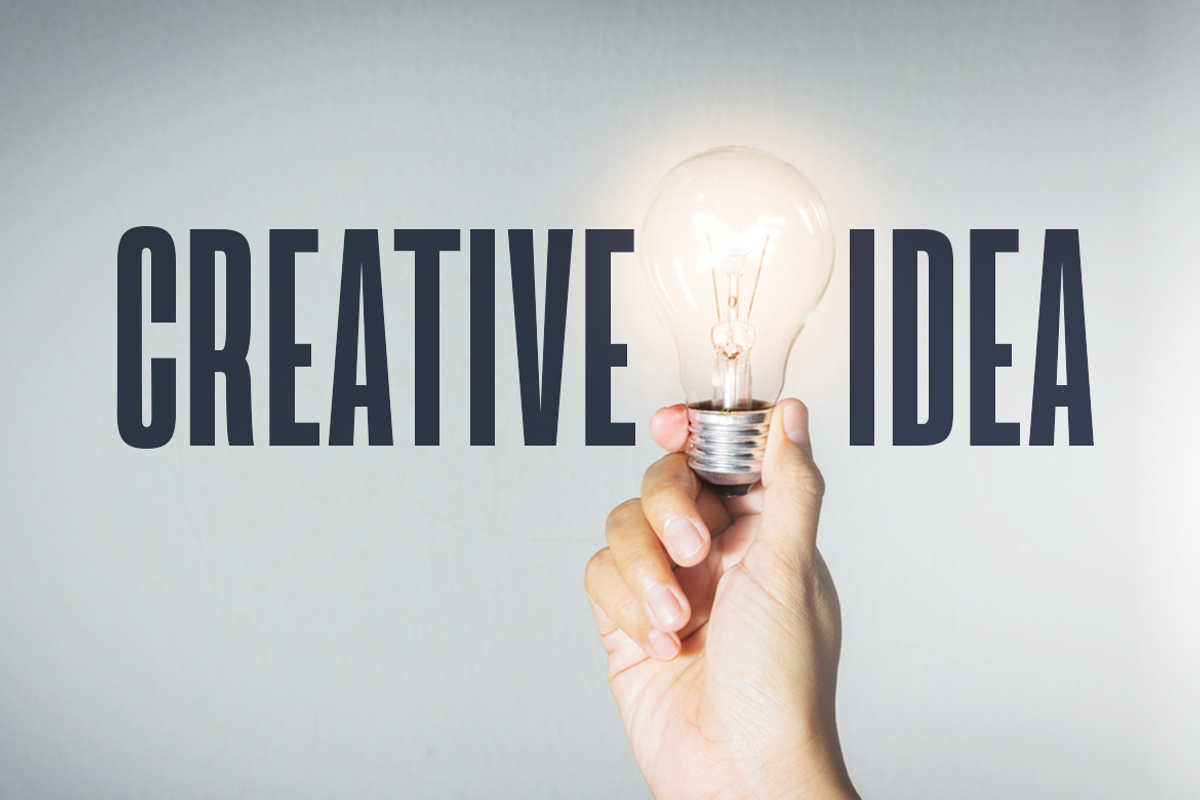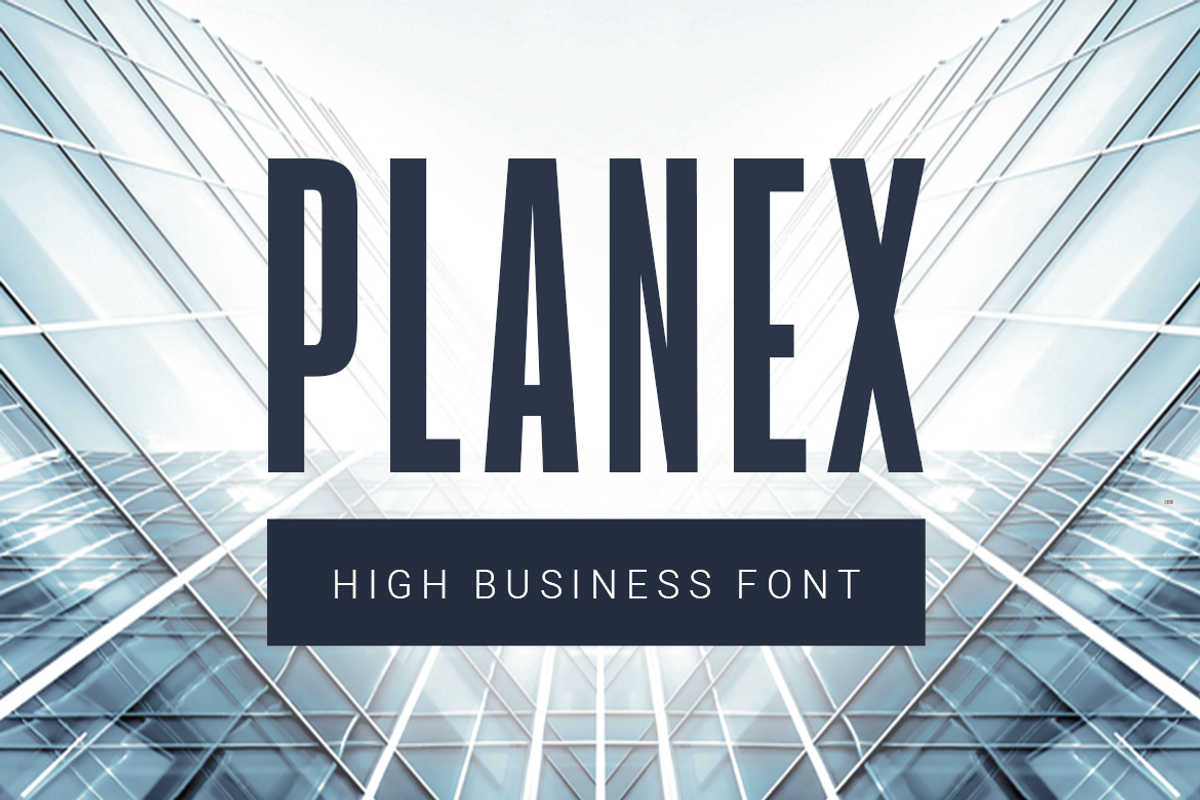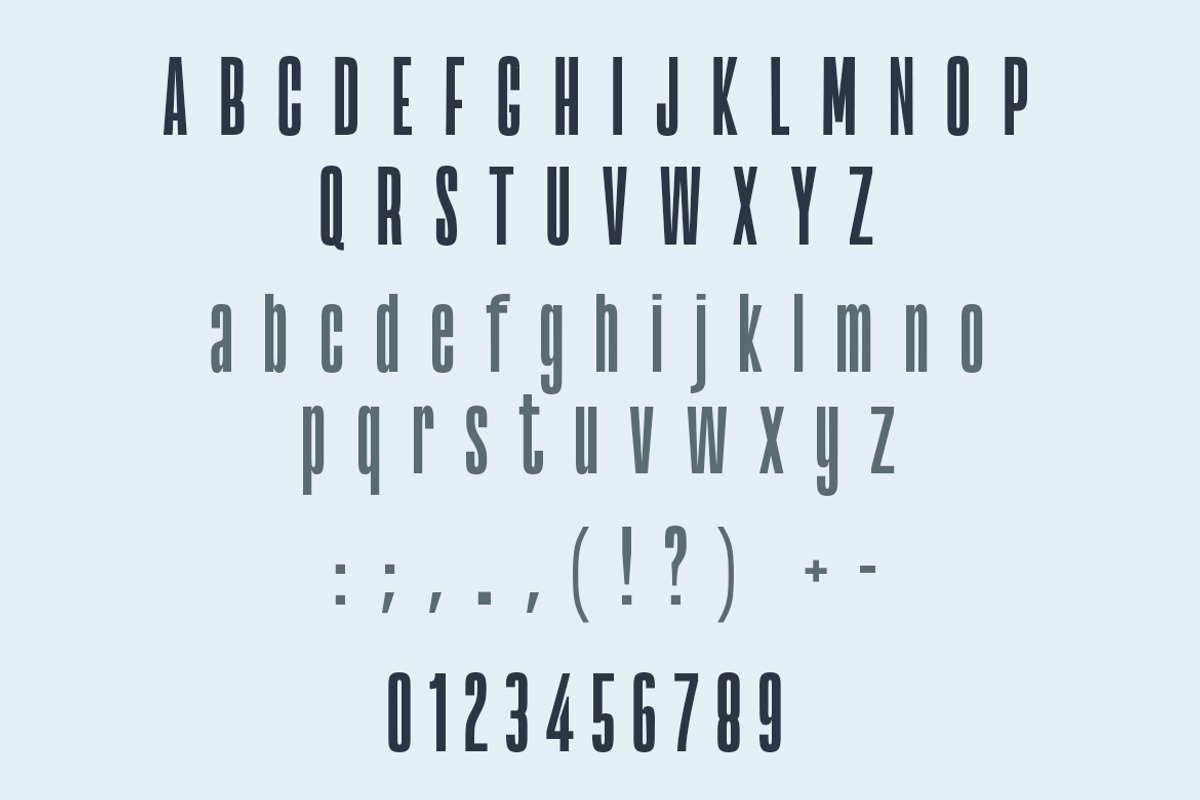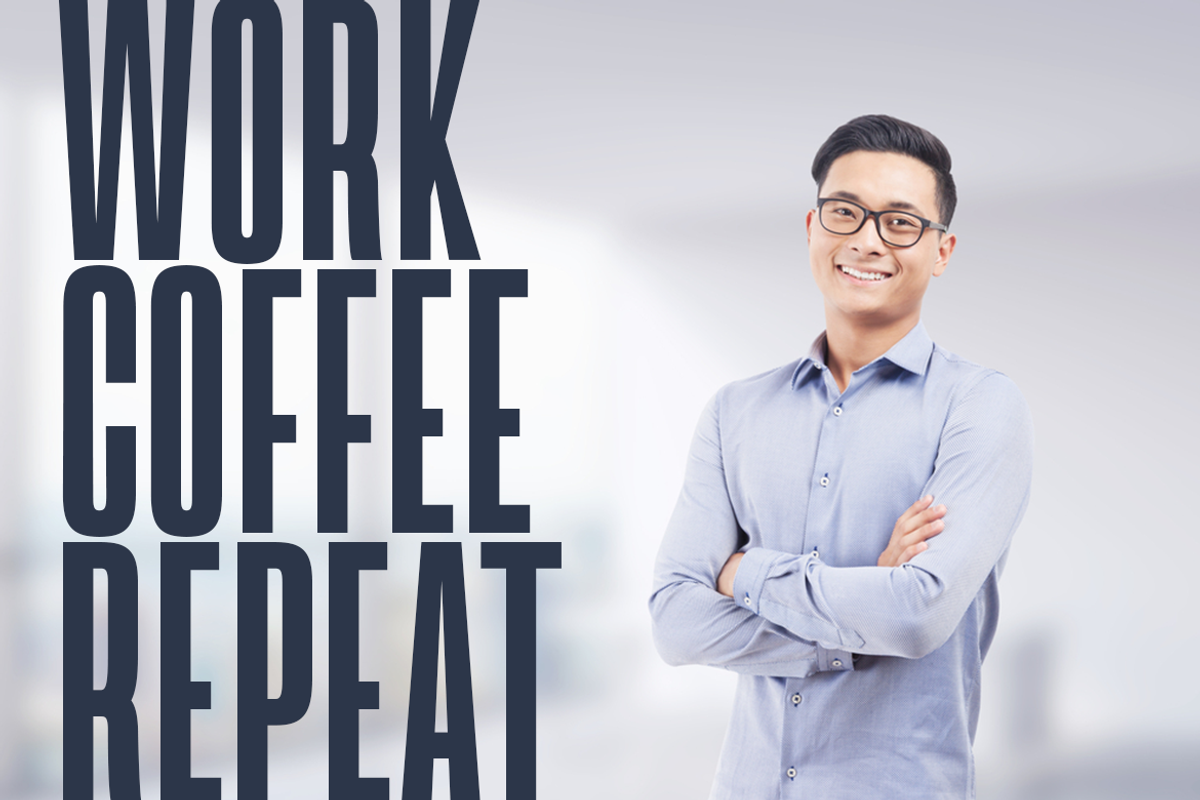
Planex| high business font
Planex is a strong sans serif font designed with high letters. Simple and stylish, it works great to make logos and short titles.
Planex| high business font by wowomnom fits naturally into Branding, posters, packaging, typography.